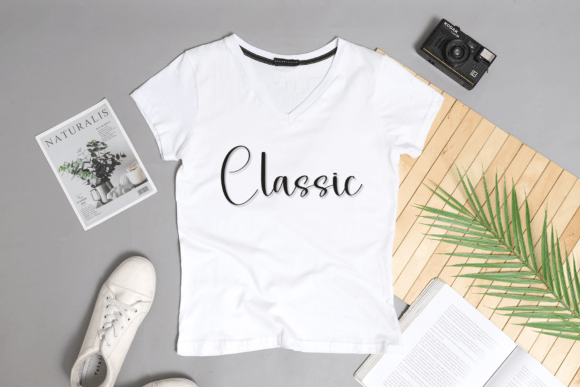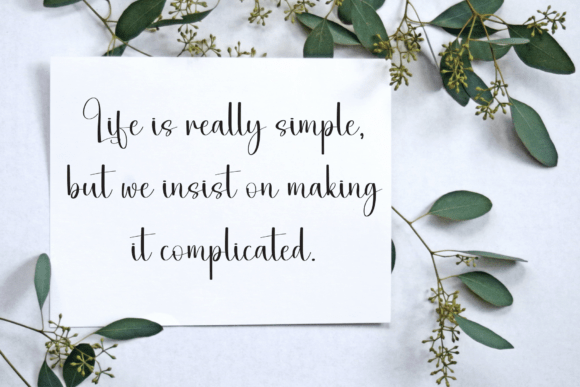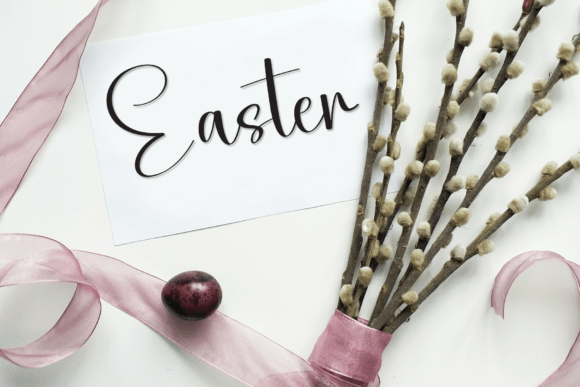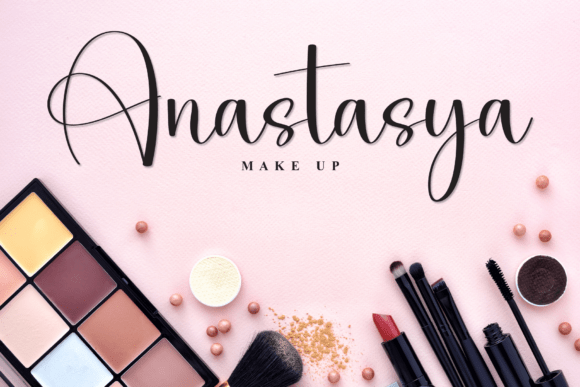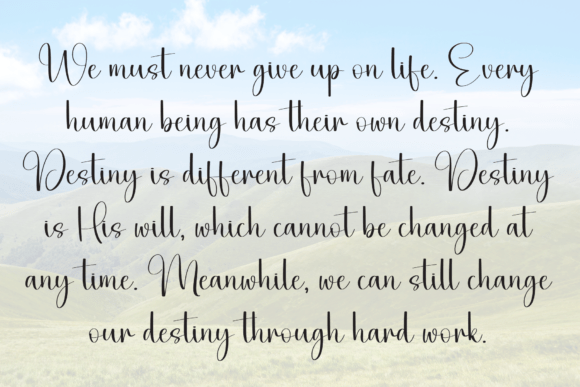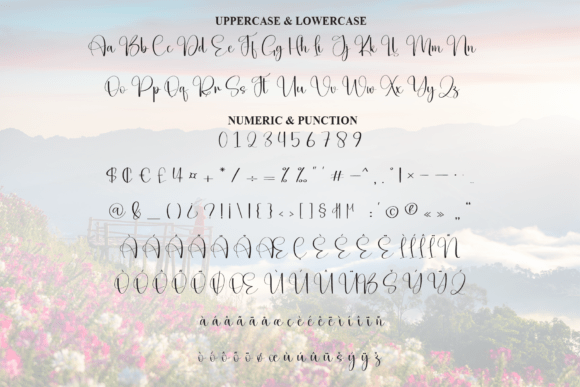
Handwritten with Heart: The Allure of Beautiful Font
There’s something magical about scribbling down ideas in a sketchbook, the scribbles and loops that bring your thoughts to life. As designers, we’ve all been there – searching for the perfect font to capture the essence of our creativity. That’s where the Beautiful Font comes in, a charming handwritten typeface that brings warmth and charm to any design.
This endearing font is designed to make every word count, infusing your designs with a sense of friendliness and fun. Whether you’re crafting wedding invitations, greeting cards, or any other design that requires a personal touch, the Beautiful Font is the perfect companion. Its unique character and whimsical flair make it a valuable asset for designers looking to add an extra layer of emotional connection to their work.
Key Features of Beautiful Font
- Unique Characteristics: Beautiful Font features a unique blend of elegance and sophistication, with intricate details and subtle flair. Its distinctive style makes it perfect for use in high-end branding, publishing, and graphic design projects.
- Font Family: Beautiful Font is part of a larger font family that includes multiple weights, from Light to Bold, allowing for a high degree of customization and flexibility in your design projects.
Beautiful Font Review
As a designer, I was excited to dive into “Beautiful Font” and see what it had to offer. Overall, I’d say it’s a solid addition to any designer’s toolkit.
- Beautiful Font offers a wide range of styles and weights, making it easy to find the perfect fit for any project.
- The font is highly legible, even at small sizes, which is a must for any professional design.
- The font is optimized for web use, making it a great choice for designers working on digital projects.
- The font may not be the most original or unique choice, as it’s based on a fairly common font style.
- The font may not be as effective for use in print materials, as it’s primarily designed for digital use.
Overall, I’d say “Beautiful Font” is a solid choice for designers who need a reliable, legible font for their projects. While it may not stand out from the crowd, it gets the job done. I’d definitely recommend it to colleagues and clients who are looking for a dependable font option.
Beautiful Font is ideal for use in:
– Luxury branding and packaging
– High-end digital products and services
– Any project where a sophisticated and elegant font is required.